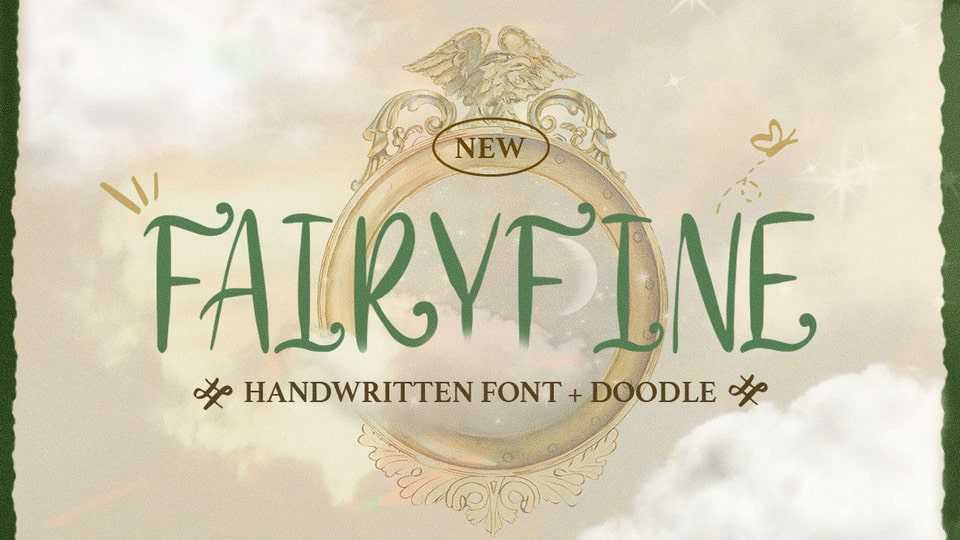
Download Faityfine font, a magic handwritten font inspired by the enchantment of fairy tales. This handcrafted font comes with whimsical doodles to embellish your imagination.